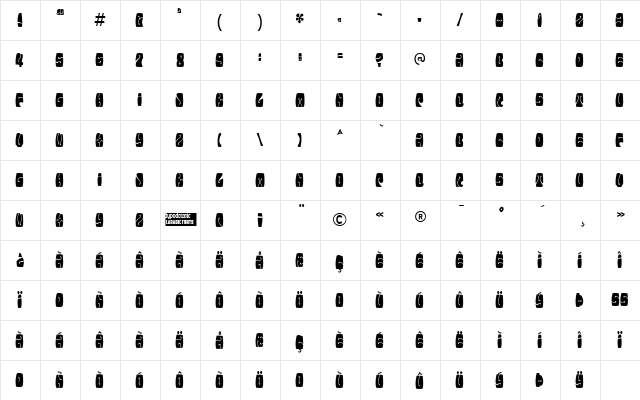
Electorate Boogaloo Regular
Design Context for Electorate Boogaloo Typeface
Electorate Boogaloo is a composed and adaptable typeface that performs quietly and consistently across a wide range of design contexts.